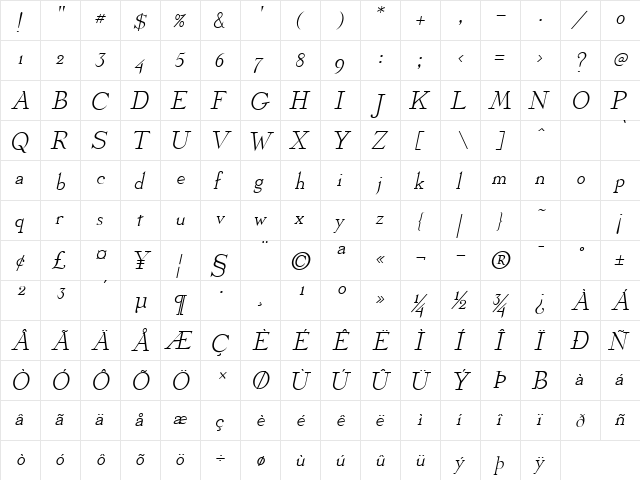
Olympus Italic
Design Context for Olympus Typeface
Olympus takes a measured approach to typography — its balanced proportions and neutral character make it a reliable workhorse for both digital and print work. The dynamic lean of this cut emphasises speed and emphasis in any layout.
Pro Tip: Use Olympus for emphasis, pull quotes, and subheadings where its slanted energy can add rhythm to the layout.